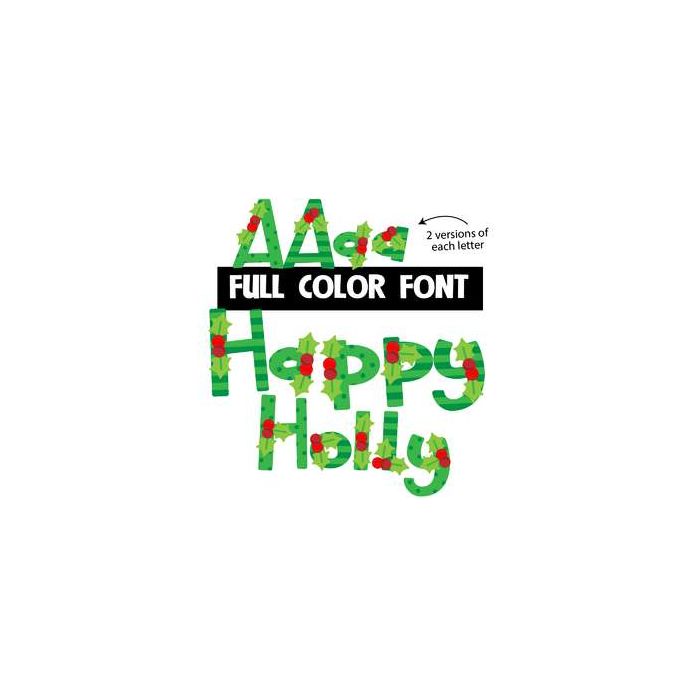
This full-color font features green patterns letters with holly. There is a second version of each letter so you can create more creative looks. Access them through your system's character map. This font works best for titles, displays, posters and more. Please note color fonts will show as black in non compatible programs. This font type is compatible with Silhouette Studio.